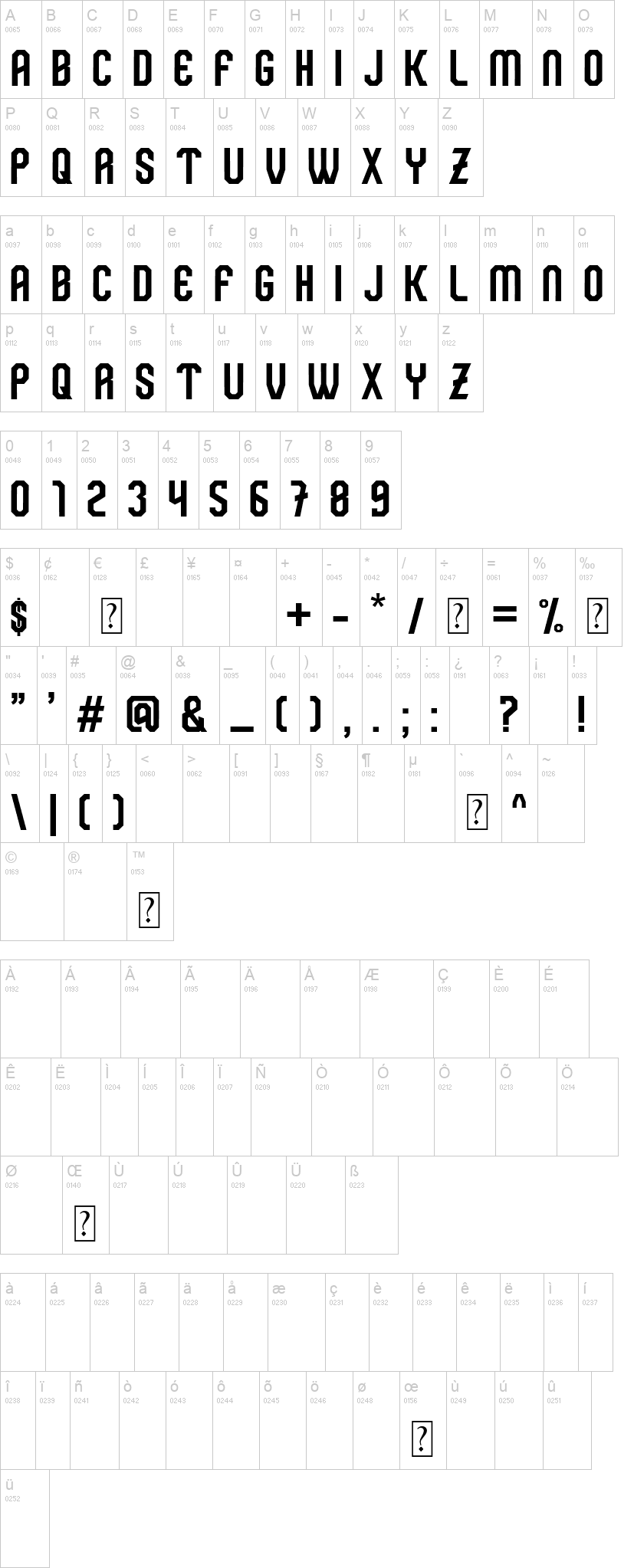
Note of the authorElastico is a modern, sporty display font. No matter the topic, this font will be an incredible asset to your fonts library, as it has the potential to elevate any creation.